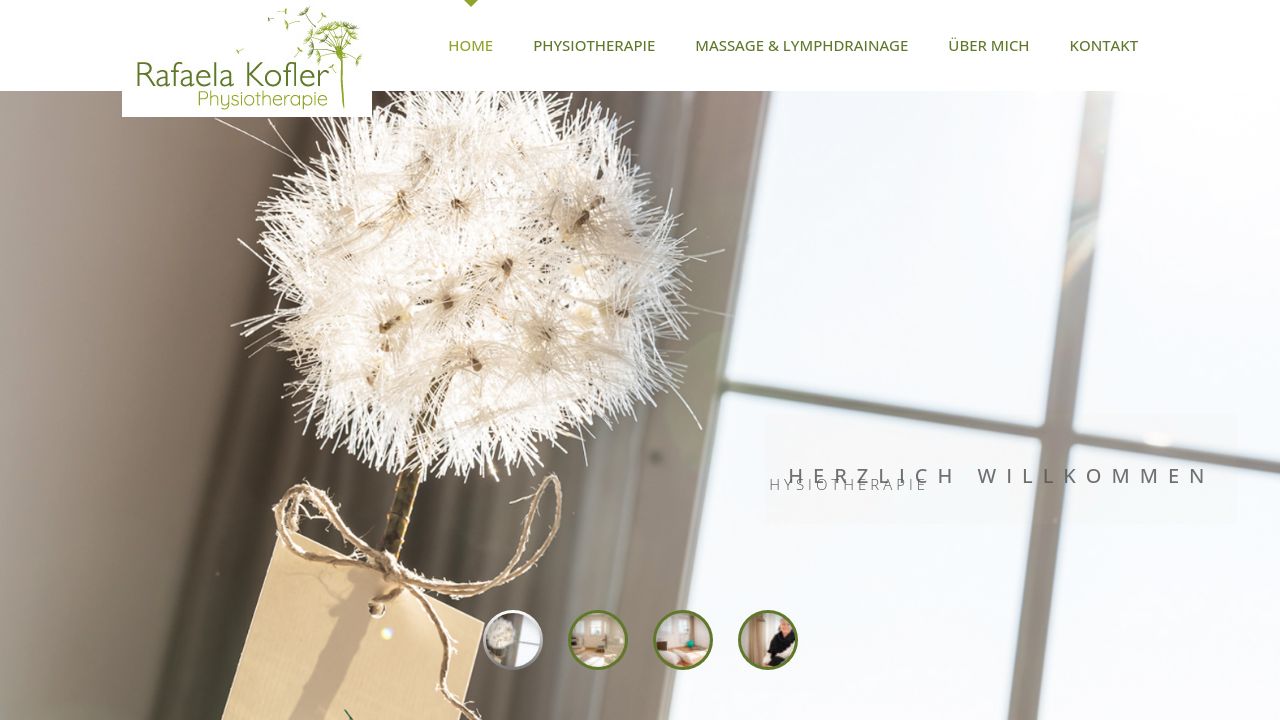
Physiotherapie Kofler's website, physiotherapie-kofler.at, utilizes a thoughtful selection of fonts that reflect its commitment to health and wellness. The primary use of Roboto and Open Sans provides a clean, approachable feel for visitors seeking physiotherapy services. Consolas adds a touch of clarity for any technical content, while the use of custom fonts like Caudex and mfn-icons enhances the site's unique identity. This combination ensures that the visual experience aligns with the brand's mission.
font-family: 'Font Awesome 5 Free', sans-serif;font-family: 'Caudex', sans-serif;These fonts are listed in the CSS as backups. The browser only falls back to them if the main fonts above fail to load.
The primary fonts on physiotherapie-kofler.at are Roboto, Consolas, and Open Sans. Additionally, custom fonts like Caudex and mfn-icons are utilized.
Open Sans is known for its legibility and modern style, making it a popular choice for web content. It contrasts well with the more monospaced Consolas.
On physiotherapie-kofler.at, Roboto and Open Sans are primarily used in weight 400. Consolas is also utilized in weight 400 for consistent text presentation.